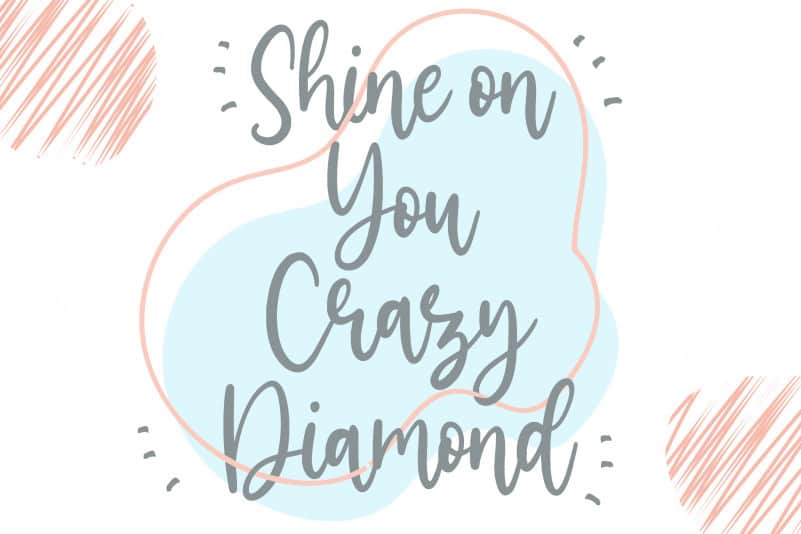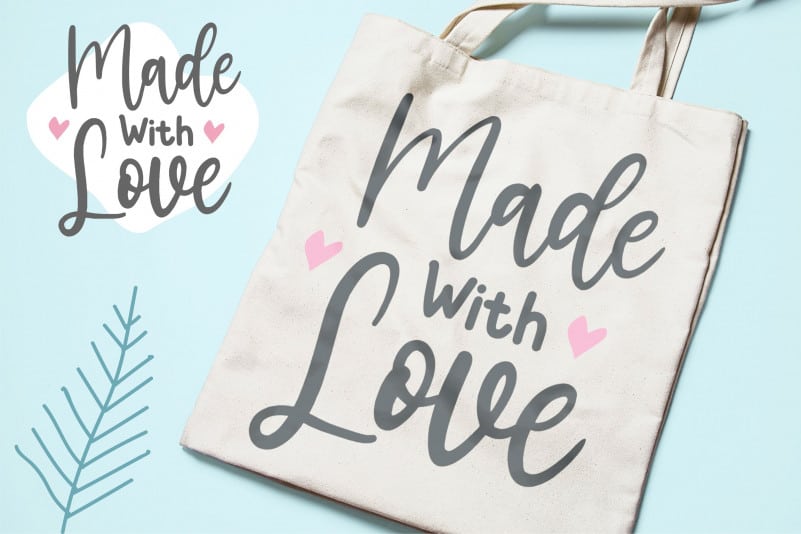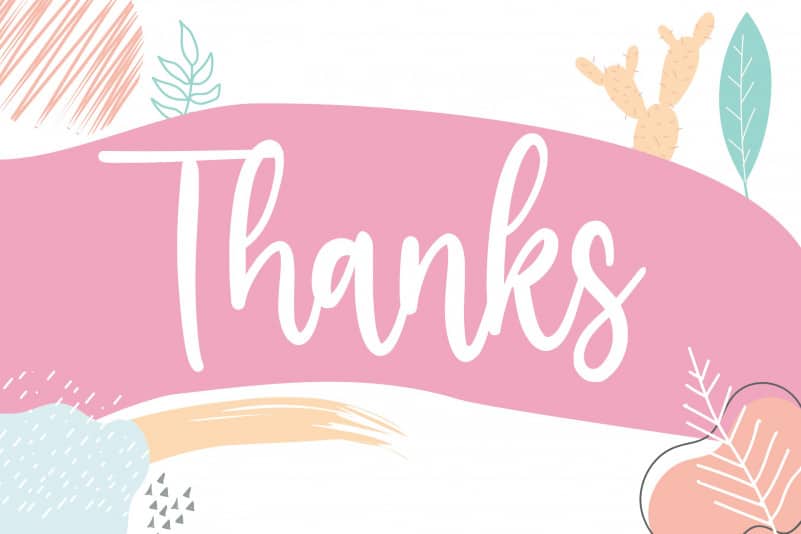
Silverglow Calligraphy Font
Proudly Present, Silverglow Playful Modern Calligraphy Font.
Silverglow is a Playful Modern Calligraphy Font. This sweet font has nice smooth lines.
Silverglow is perfect for product packaging, branding project, megazine, social media, wedding, or just used to express words above the background.